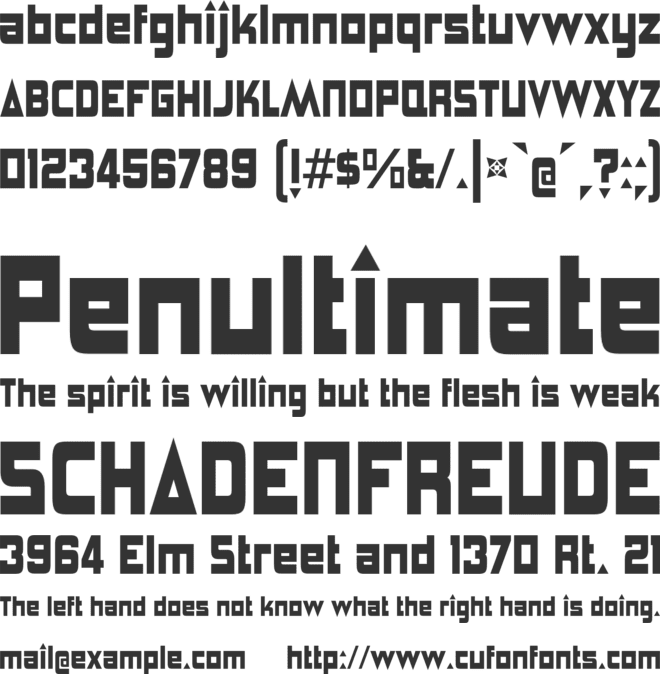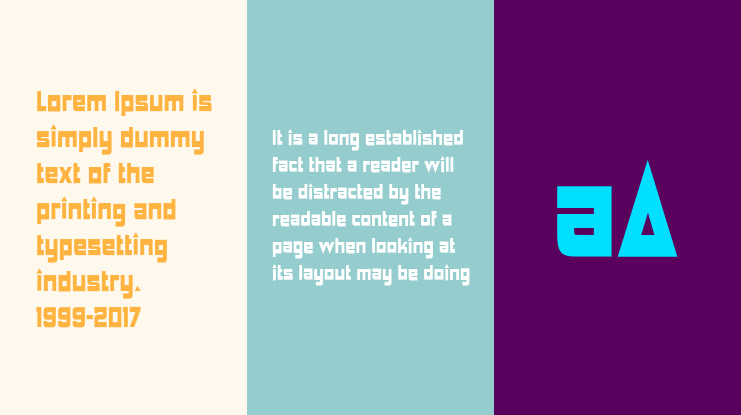
I released this typeface on February 14, 1999. At first, I called it
“Anglepoise Lampshade,” after a song by the punk band The Soft Boys.
I didn’t realize Anglepoise was also a lamp brand. Nearly two decades
later, their trademark owner contacted me, pointing out that my font
was confusing their lampshade customers in search results. To avoid
conflict, I renamed it “Angerpoise Lampshade,” which preserved some of
the punk edge of the original name.
The design itself was a quick experiment, a modification of the
letterforms from my Hemi Head typeface. The early version was rough,
and I think that held back its popularity. I never saw it used anywhere
notable.
Stylistically, I once described it with an Art Deco hook, but in truth, I
don’t think it has any Art Deco in it. It has more in common with the
cyberpunk bitmap fonts I saw in 4K demos and late-1980s and early
1990s computer games. Looking back, I should have just called it
postmodern, since it doesn’t sit comfortably in any single category.
placed it into the public domain. For me, the project is less about the
design itself than the lesson it taught: be careful with font naming,
because trademark conflicts can creep up even decades later.